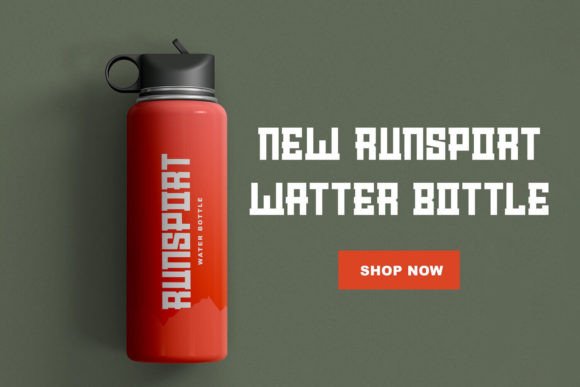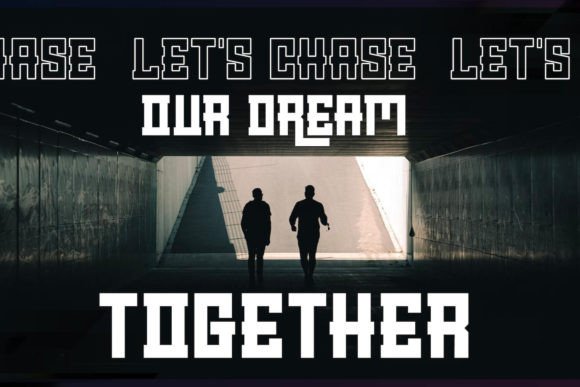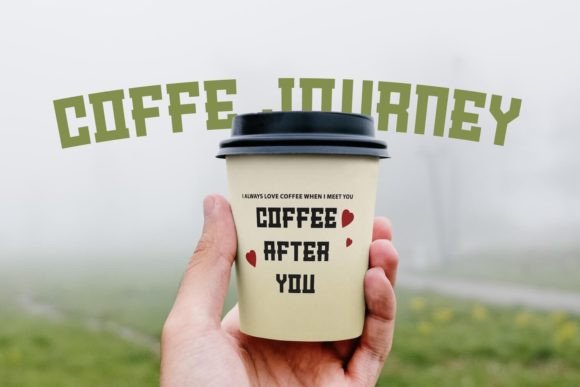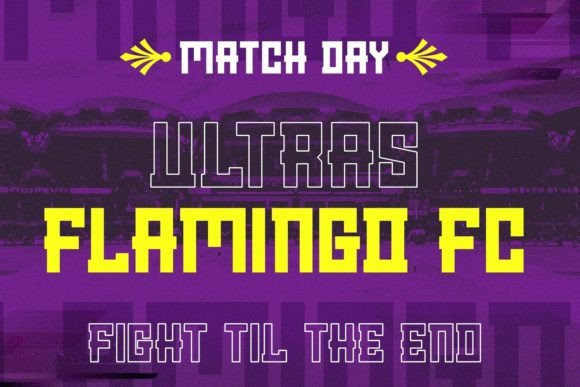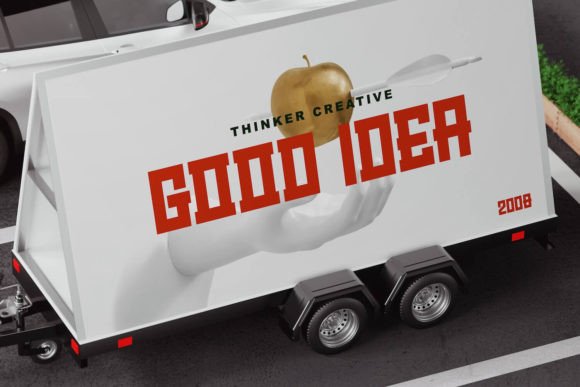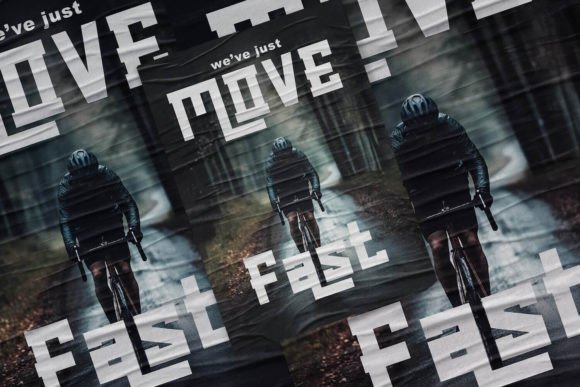
Introduction to Cyber Display Font
Introducing Cyber Display – Modern Sporty Font Cyber Display is a sporty and modern display font.
This playfully conceptual typeface font will look truly outstanding in a wide range of contexts This font is very suitable for any sports needs.
Key Features of Cyber Display Font